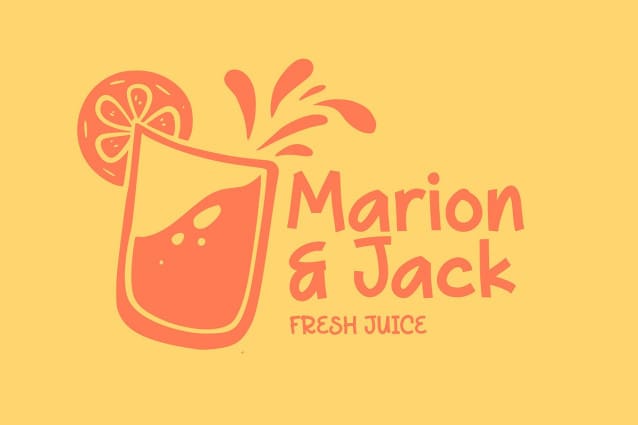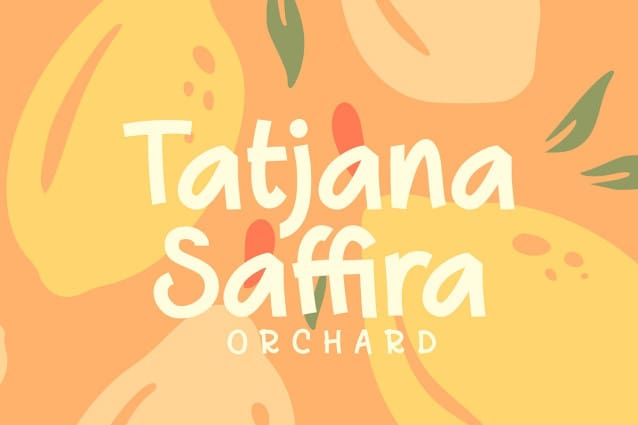
Fresh Lemons Font
Fresh Lemons Font is a visually amazing display font with thin lines suitably applied for a more elegant, modern looking display. In addition, such a font shows professional, high quality nuances on your designs due to the simple forms and consistent proportions to be legible enough. You will receive a clipart as a bonus and you can also enjoy the available features here.